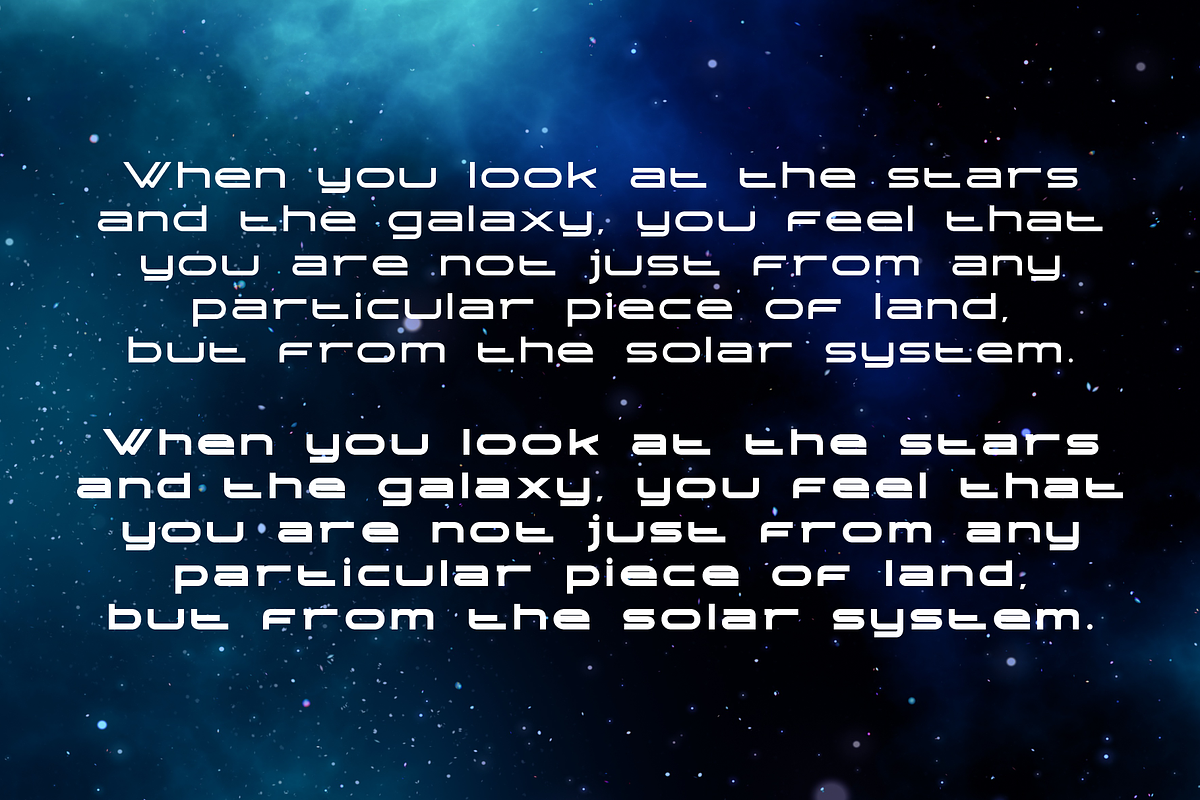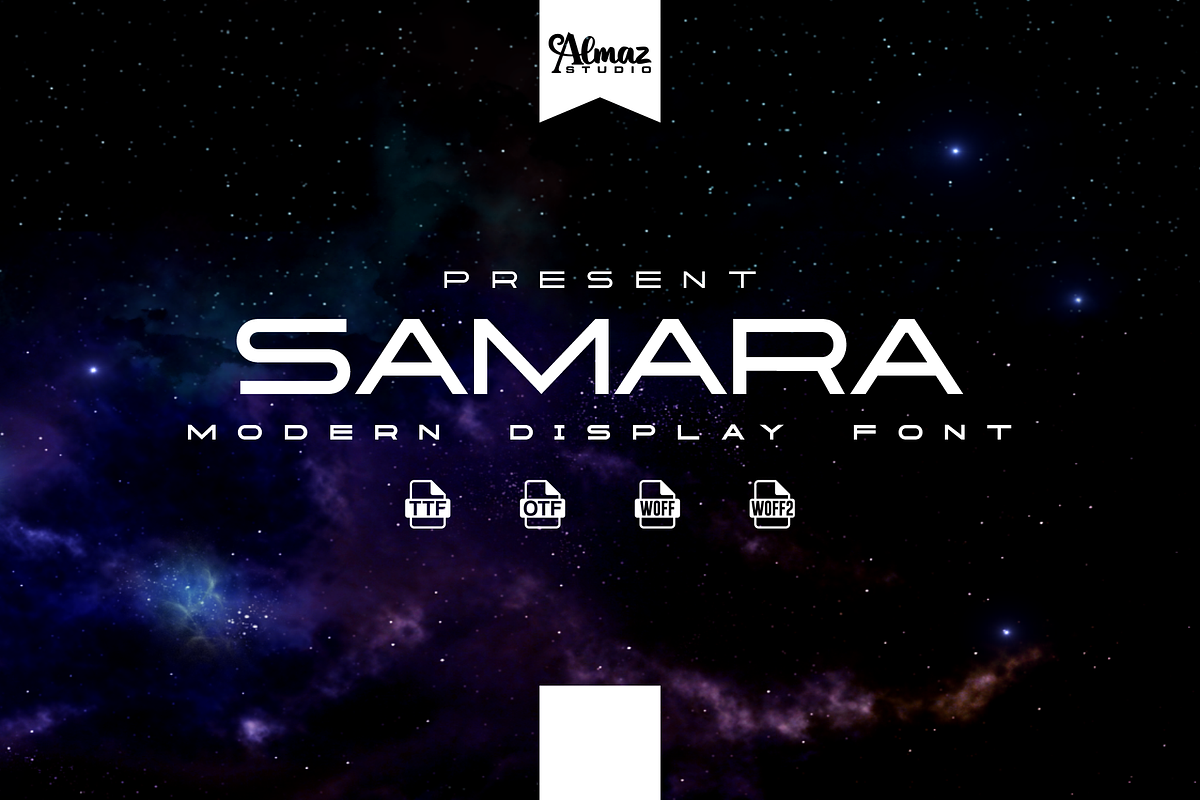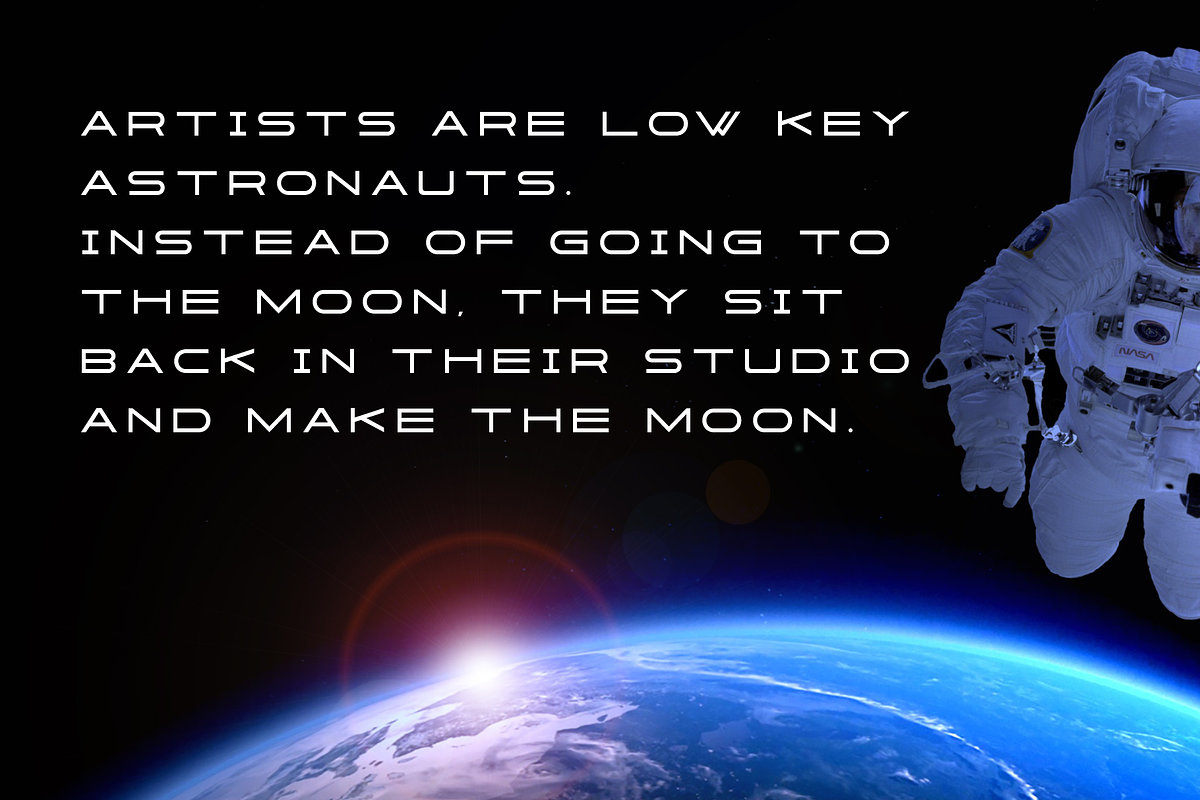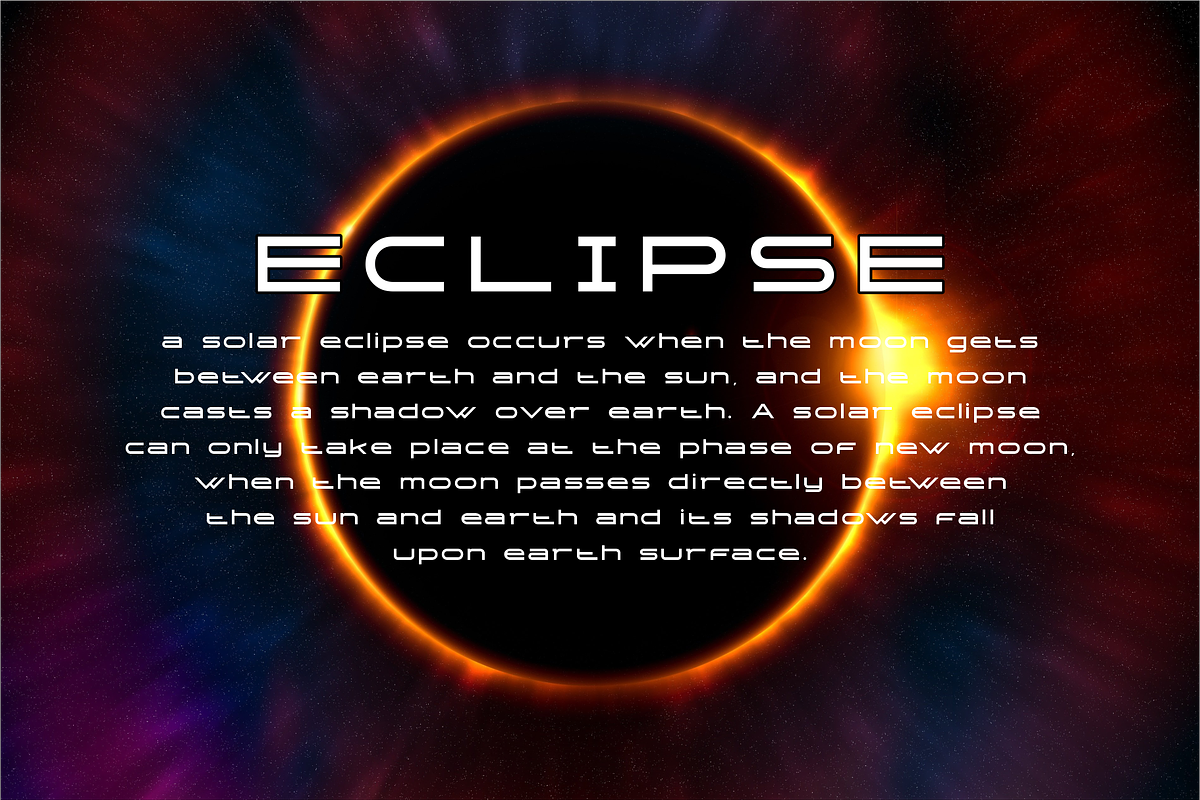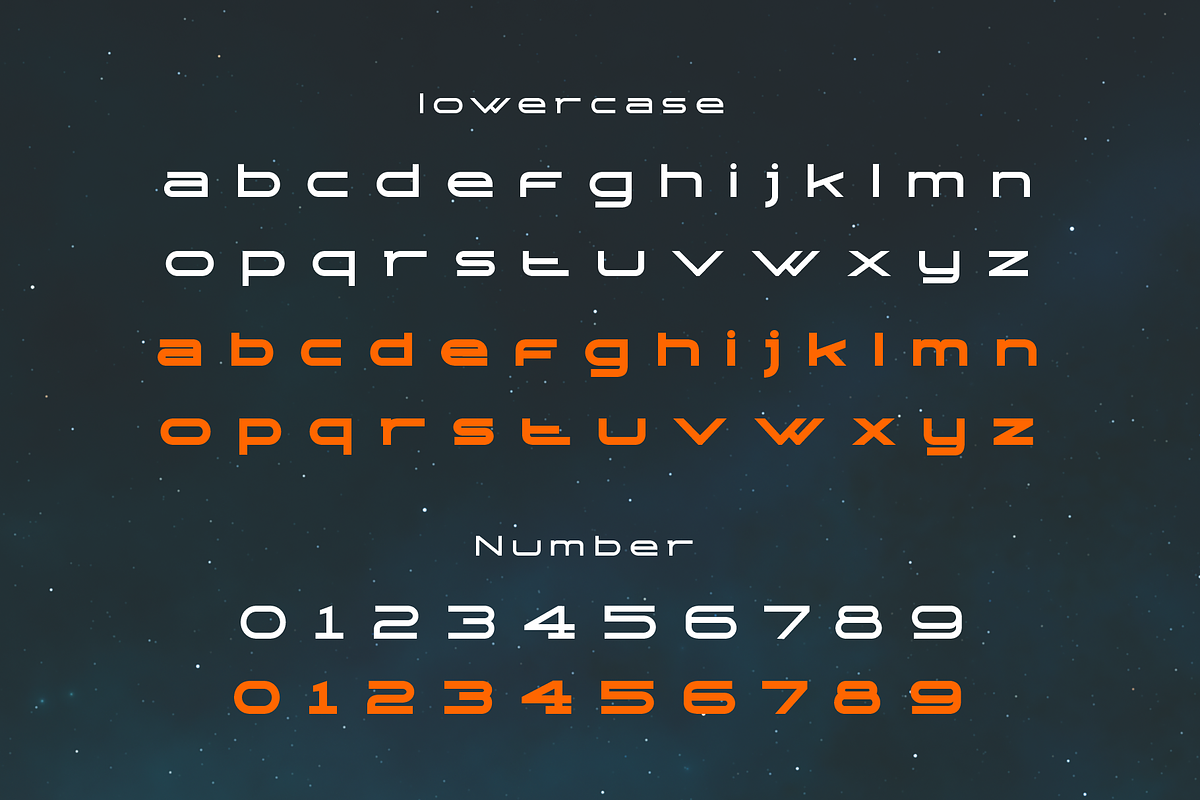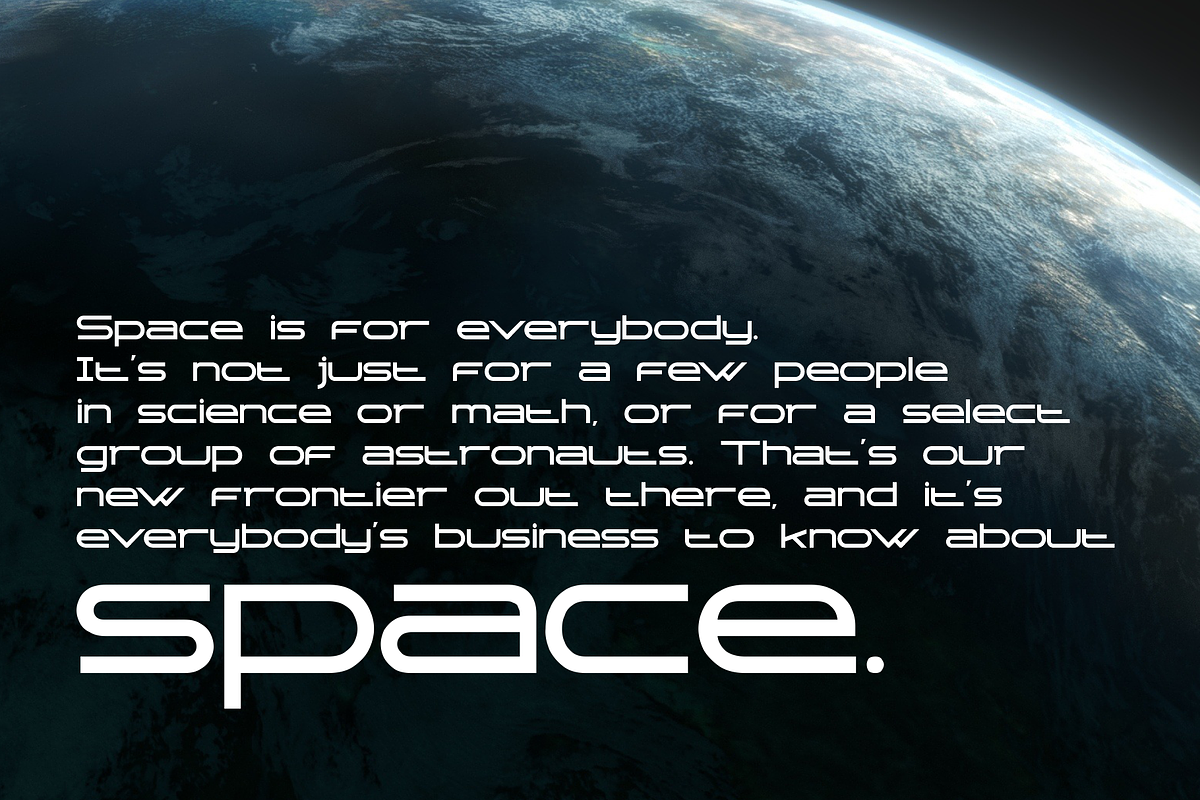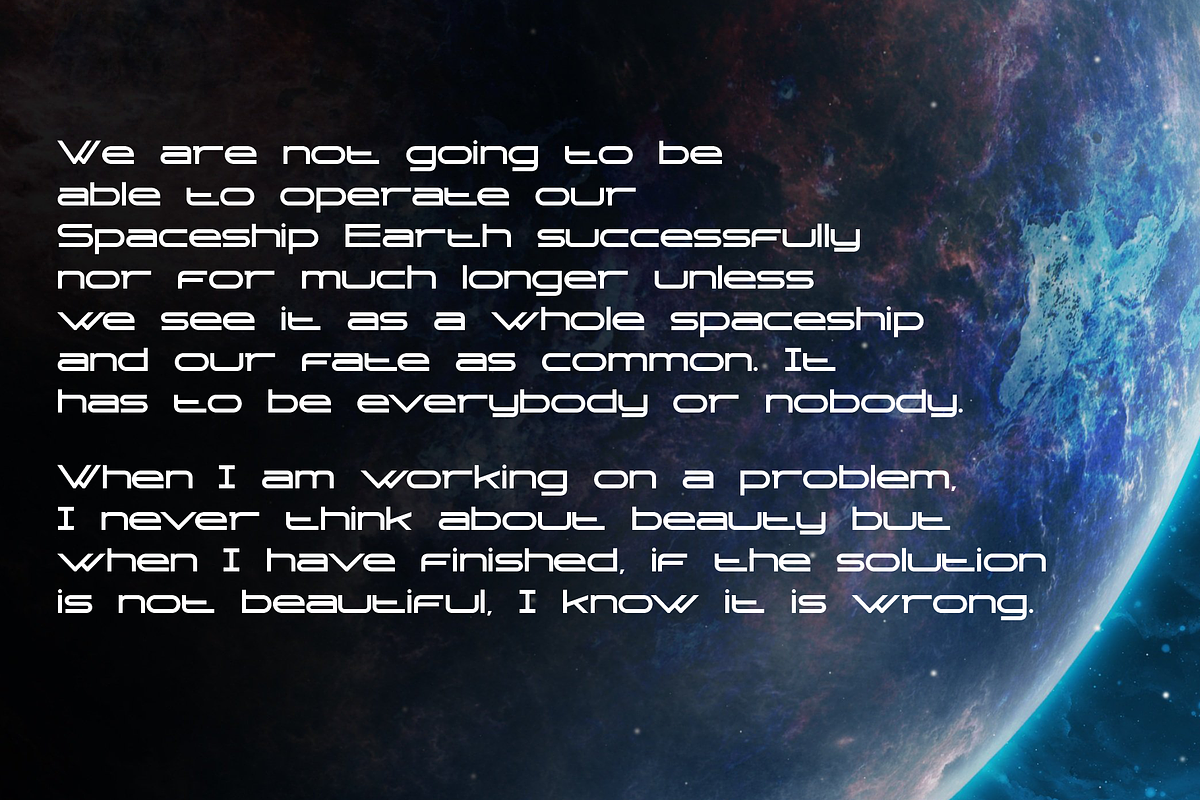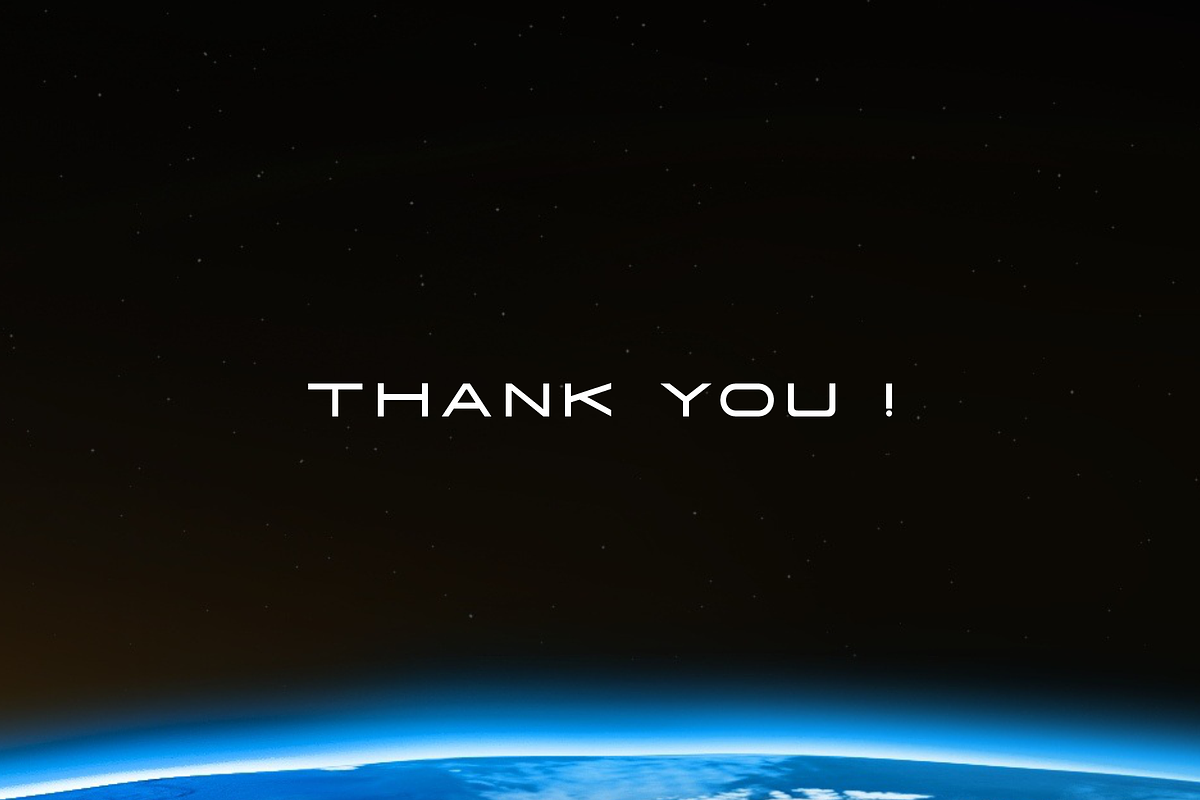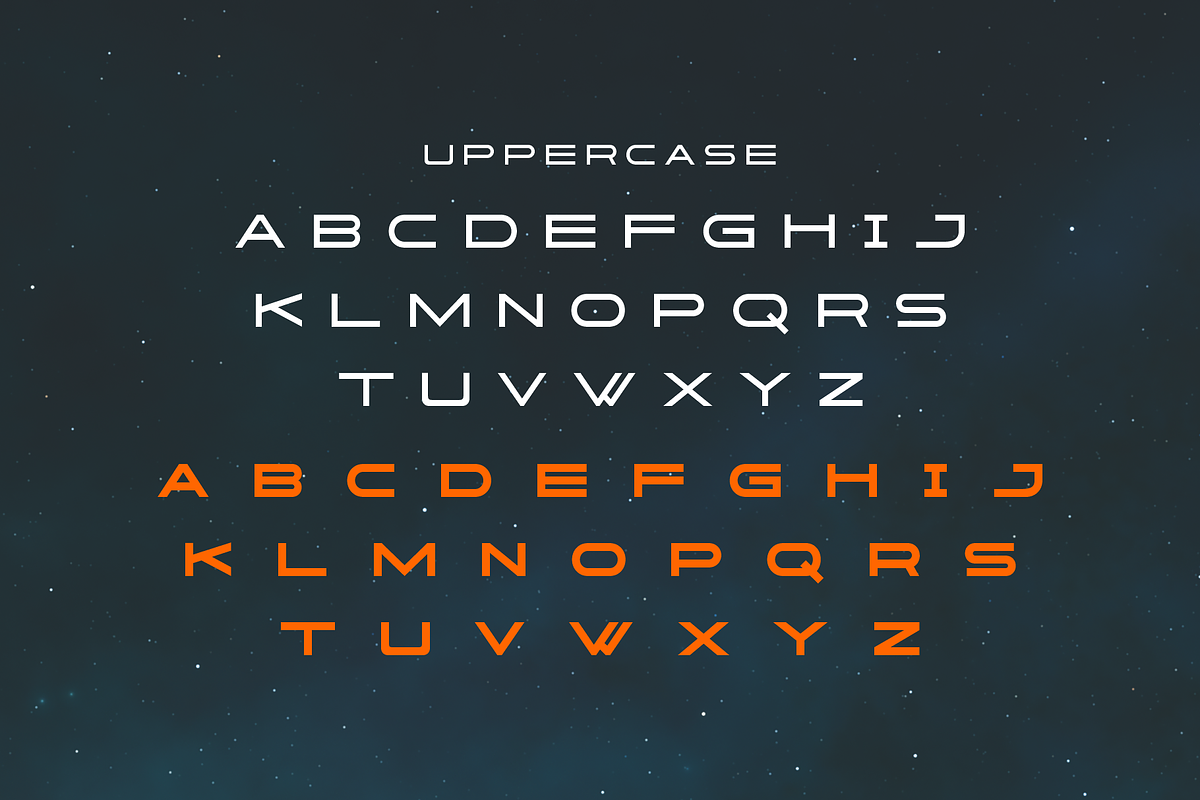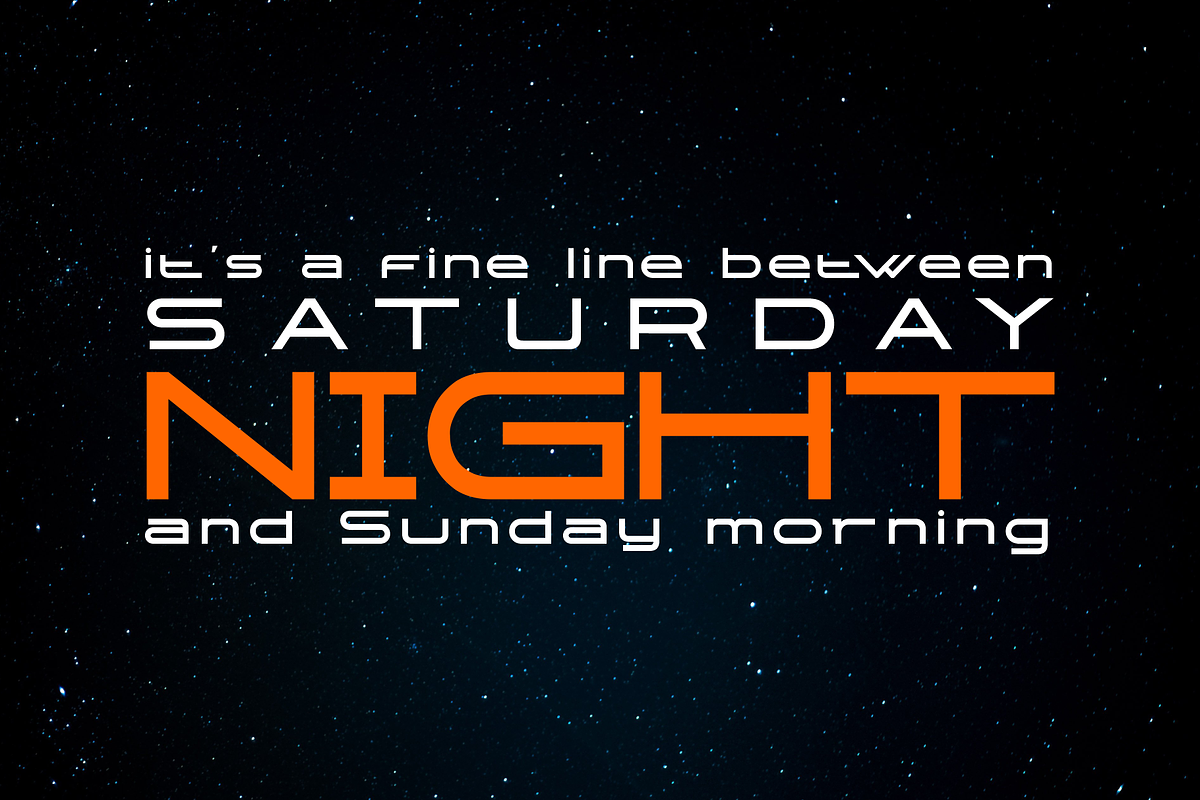
Samara
Samara is a futuristic sans serif font that takes on the theme of advanced technology. This font is good to use as a headline or title of a magazine, print, poster, web font, etc. the body of this font is square with a little curved on each side. inspired by spaceship construction on pop culture depictions. Samara is an ultramodern, ultra compact sans serif typeface. It was designed for maximum compression, allowing you to fit more words in a line than techno typefaces normally allow. Samara is at the normal typeface compression limit. Crammed is unusually compact. Crushed is ludicrously concentrated. Samara almost all current Latin-based languages are supported.